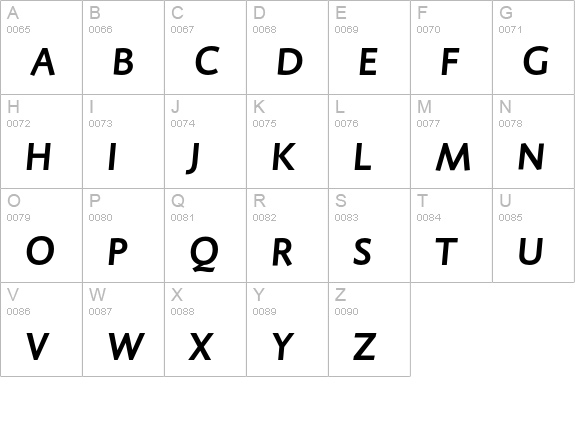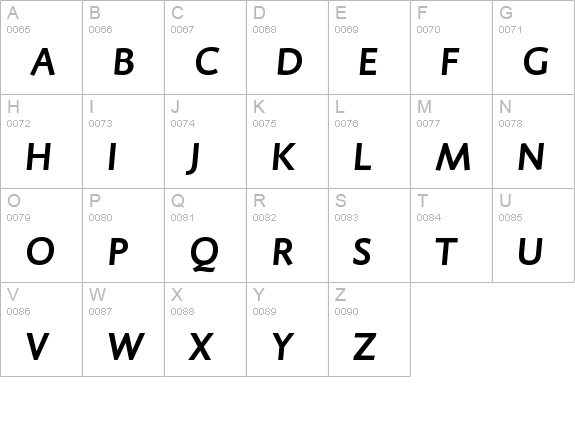
DTLCaspariST-BoldItalic Font Details
The DTLCaspariST-BoldItalic font is a stylish and versatile typeface that exudes elegance and sophistication. Its bold and italic design gives a sense of confidence and flair to any text it adorns. Whether used for headlines, titles, or other design elements, this font is sure to make a statement. The DTLCaspariST-BoldItalic font is ideal for projects that require a touch of class and sophistication, such as branding materials, invitations, and advertisements. Its sleek and modern look adds a contemporary feel to any design. Best of all, the DTLCaspariST-BoldItalic font is available for free download at FontsMarket.com. You can easily access this beautiful typeface and incorporate it into your projects without any cost. Don't miss out on this opportunity to elevate your designs with the DTLCaspariST-BoldItalic font.